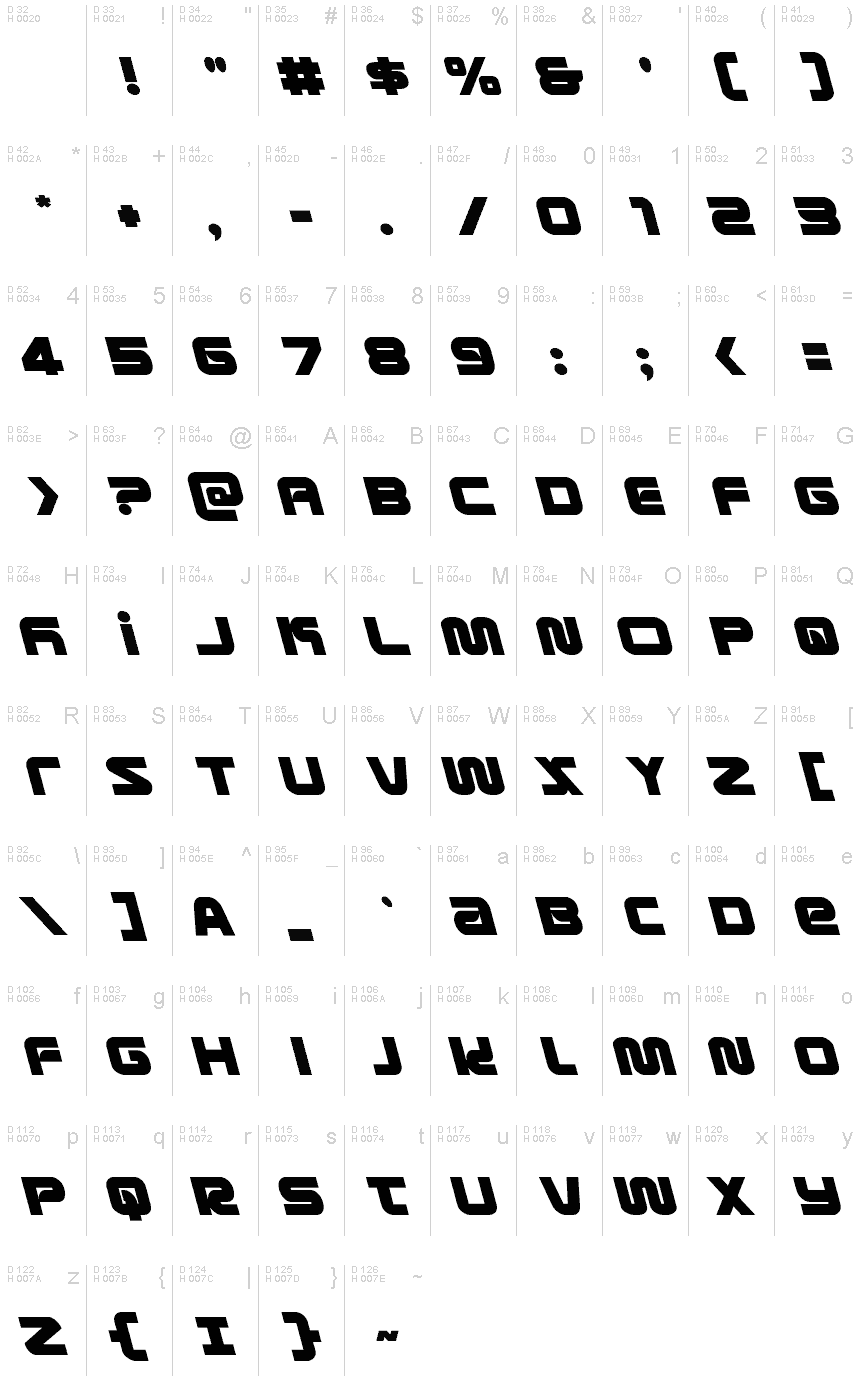
Metronauts Leftalic
Metronauts Leftalic is a striking and futuristic display font that radiates a sense of technological prowess. Designed by Daniel Zadorozny, this bold and expanded typeface boasts a distinctive aesthetic that seamlessly blends geometric precision with a touch of retro-futuristic charm. The sharp, angular letterforms and generous spacing lend an air of sleekness and modernity, making Metronauts Leftalic an ideal choice for a wide range of design applications, from eye-catching headers and branding to sci-fi-inspired posters and digital interfaces.
This versatile font commands attention, effortlessly conveying a sense of cutting-edge innovation and forward-thinking design.